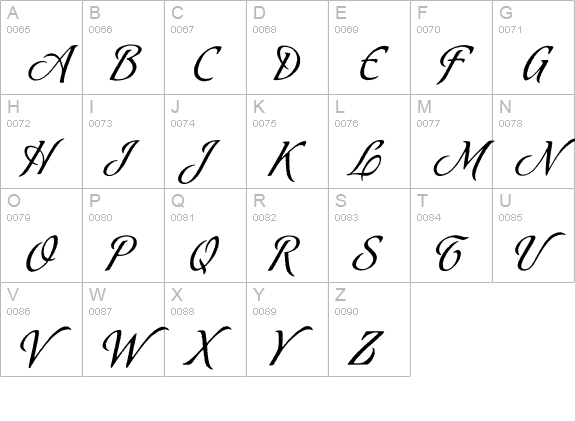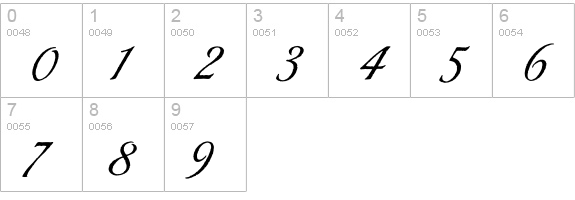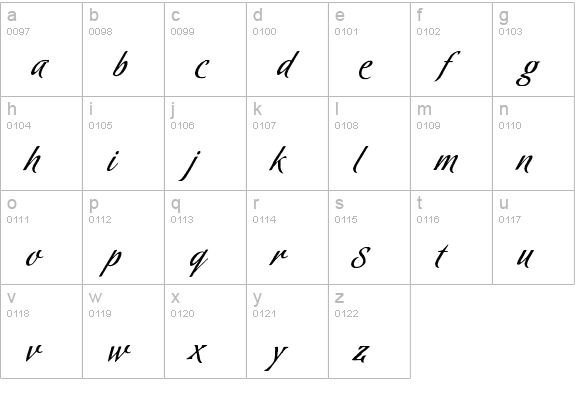
Oxida-Alternate Font Details
Introducing Oxida-Alternate font, a stunning typeface that exudes elegance and sophistication. With its unique alternate characters, this font adds a touch of flair to any design project. The delicate curves and sharp angles of Oxida-Alternate create a harmonious balance, making it a versatile choice for both headings and body text. Best of all, Oxida-Alternate is available for free download at FontsMarket.com. Whether you're designing a website, creating a logo, or crafting a print layout, this font is sure to elevate your work to the next level. Don't miss out on the opportunity to add Oxida-Alternate to your font collection today!